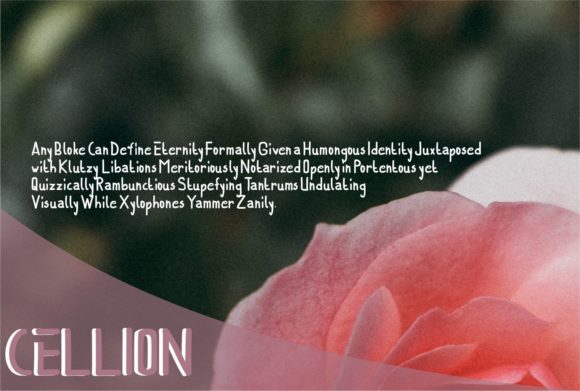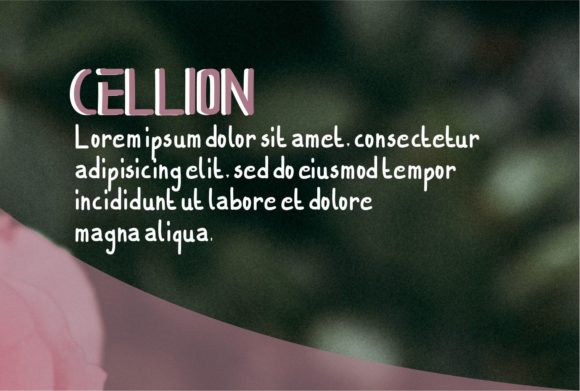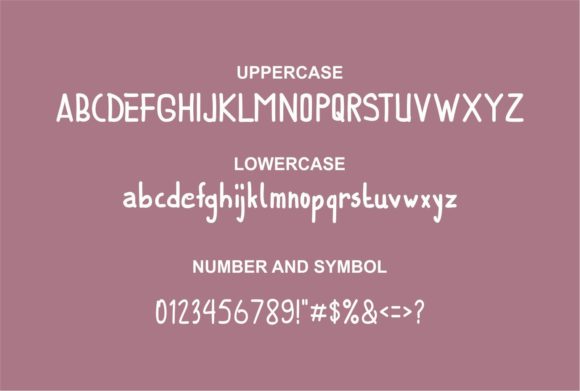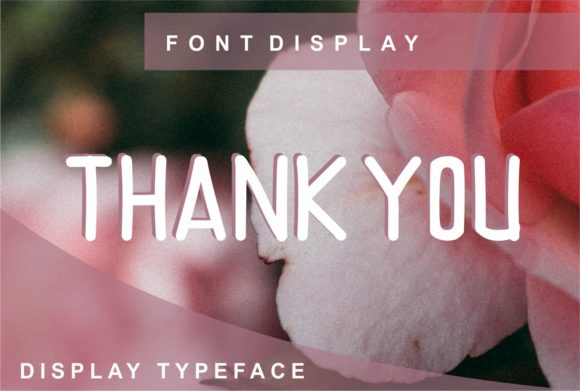
Discover the Versatility of Cellion Font: A Clean and Adaptable Display Font
In the world of typography, a font can make or break a design. It’s the foundation upon which the entire visual identity of a project is built. For designers and crafters, finding the perfect font that can elevate their creations is a constant quest. This is where Cellion Font comes into play – a clean and adaptable display font that has the potential to enhance any creation. In this article, we’ll dive into the features, benefits, and uses of Cellion Font, and explore why it’s a wonderful asset to your font library.
What is Cellion Font?
Cellion Font is a modern, sans-serif display font designed to be versatile and highly legible. Its clean lines, simple shapes, and open structure make it perfect for a wide range of applications, from digital displays to print materials. Whether you’re working on a branding project, a website, or a craft project, Cellion Font is designed to adapt and shine.
Key Features of Cellion Font
- Clean and Simple Design: Cellion Font boasts a minimalist design that ensures clarity and readability, even at smaller sizes.
- Adaptable: Its neutral and unobtrusive style makes it suitable for various design contexts, from tech and finance to fashion and lifestyle.
- Highly Legible: The font’s open structure and carefully crafted letterforms ensure that it remains easy to read, even on digital screens.
- Versatile: Cellion Font comes in a range of weights, making it perfect for creating visual hierarchies and adding emphasis to specific parts of your design.
Benefits of Using Cellion Font
So, why should you consider adding Cellion Font to your font library? Here are just a few benefits:
- Enhance Your Brand’s Visual Identity: With Cellion Font, you can create a strong and cohesive visual identity for your brand that exudes professionalism and sophistication.
- Streamline Your Design Process: Having a versatile font like Cellion Font in your library can save you time and effort in searching for the perfect font for each project.
- Elevate Your Digital Presence: Cellion Font is optimized for digital use, ensuring that your website, social media, and other online materials look crisp and professional.
Using Cellion Font in Your Designs
Cellion Font is incredibly versatile, making it suitable for a wide range of design applications. Here are some ideas to get you started:
- Branding and Logo Design: Use Cellion Font to create a strong and memorable brand identity that sets you apart from the competition.
- Web Design: Cellion Font is perfect for website headers, titles, and other display text, ensuring that your online presence looks polished and professional.
- Print Materials: From business cards to brochures, Cellion Font can add a touch of sophistication and elegance to your print materials.
- Crafting and DIY Projects: Whether you’re creating custom signs, labels, or other DIY projects, Cellion Font is a great choice for adding a professional touch.
| Font Name | Cellion Font |
| Author | Letteria_studio |
In conclusion, Cellion Font is a clean and adaptable display font that has the potential to elevate any creation. Its versatility, legibility, and clean design make it a wonderful asset to your font library. Whether you’re a designer, crafter, or simply someone who appreciates good typography, Cellion Font is definitely worth checking out. So why not give it a try and see how it can enhance your designs?